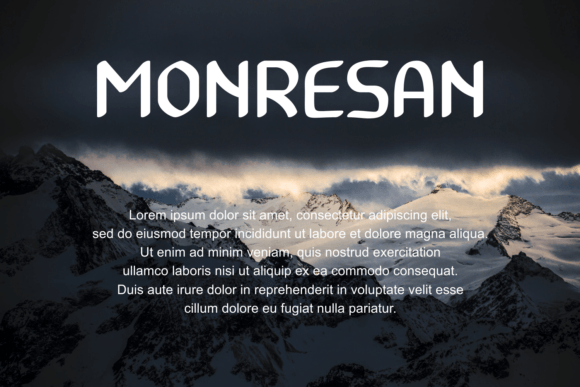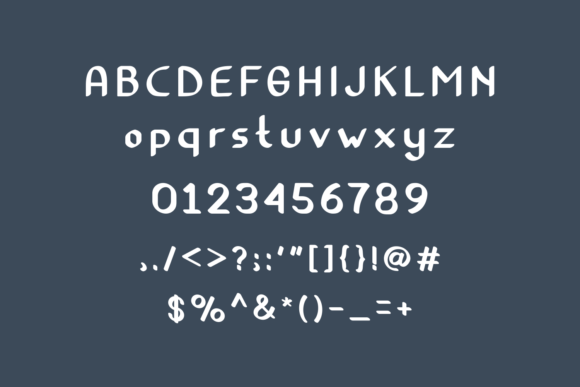
Introduction to Monresan Font
Monresan is a cool and unique sans serif font.
Monresan Font offers exceptional quality and versatility, making it a valuable addition to your design toolkit. Whether you’re creating for personal projects or commercial use, Monresan Font delivers professional results.